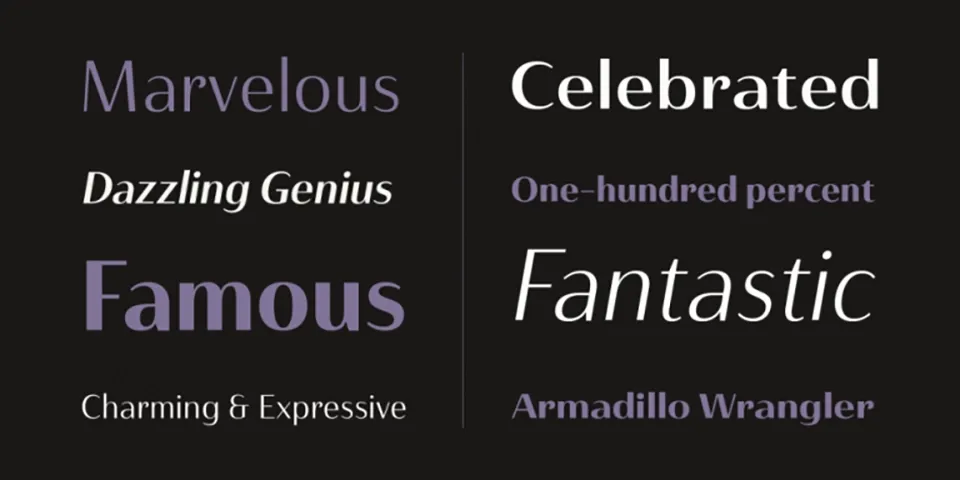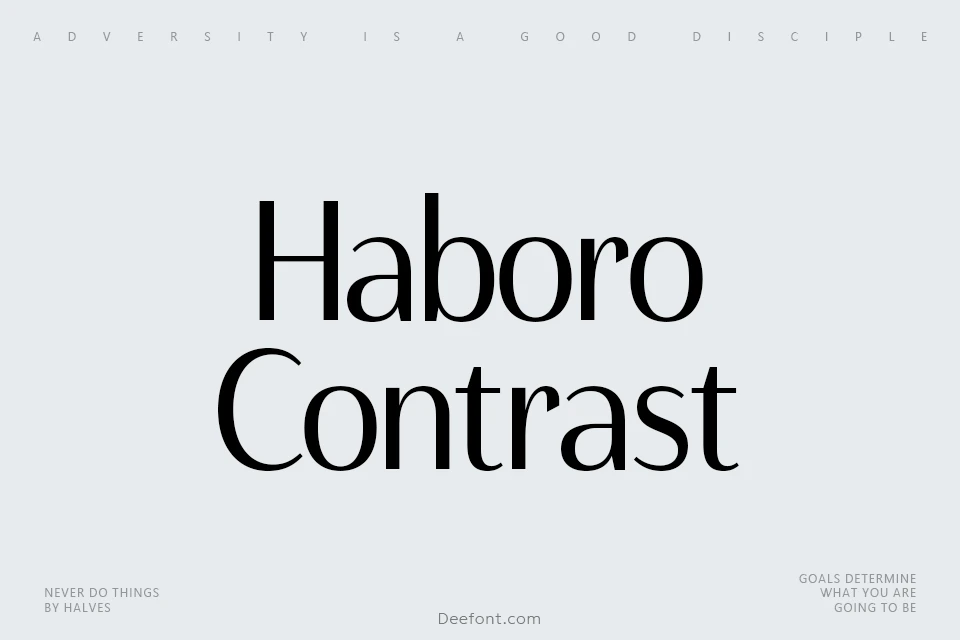
Haboro Contrast Font Family
Haboro Contrast Font Family is a high-contrast sans serif typeface designed to deliver elegant performance and refined modern style. Built from the same clean, geometric shapes as Haboro Sans, this family has been rebalanced for maximum visual impact in each weight. With OpenType features such as ligatures, stylistic sets, fractions, crafted small caps, and old-style figures, Haboro Contrast Font Family offers versatility for both print and digital applications. Its personality is gentle yet confident, making it ideal for magazines, branding, brochures, and any project that demands a sophisticated and expressive typographic touch.